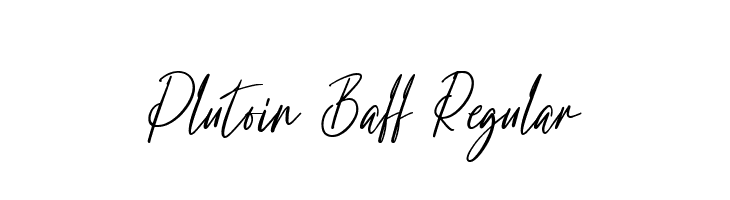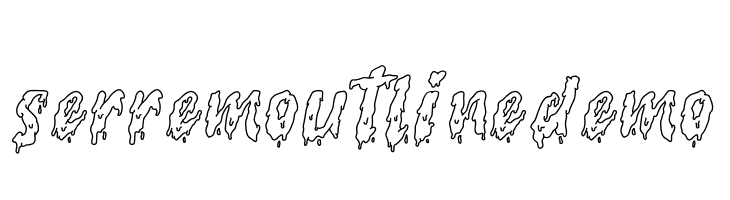
A dynamic, handwritten script with fluid strokes and lively contrast.
An ornate and decorative font with elaborate swirls and flourishes.
A bold, graffiti-inspired font with angular, sharp edges and a decorative style.
A bold, hand-drawn font with an expressive and artistic style.
A decorative script font with flowing, interconnected letterforms and intricate swashes.
An elegant, medium-weight italic serif font with classic styling.
A bold, three-dimensional font with strong shadow effects and geometric style.
A dripping, outline-style font with a playful and eerie appearance.
A bold, decorative font with vintage flair and intricate details.
A playful handwritten font with a lively and casual style.